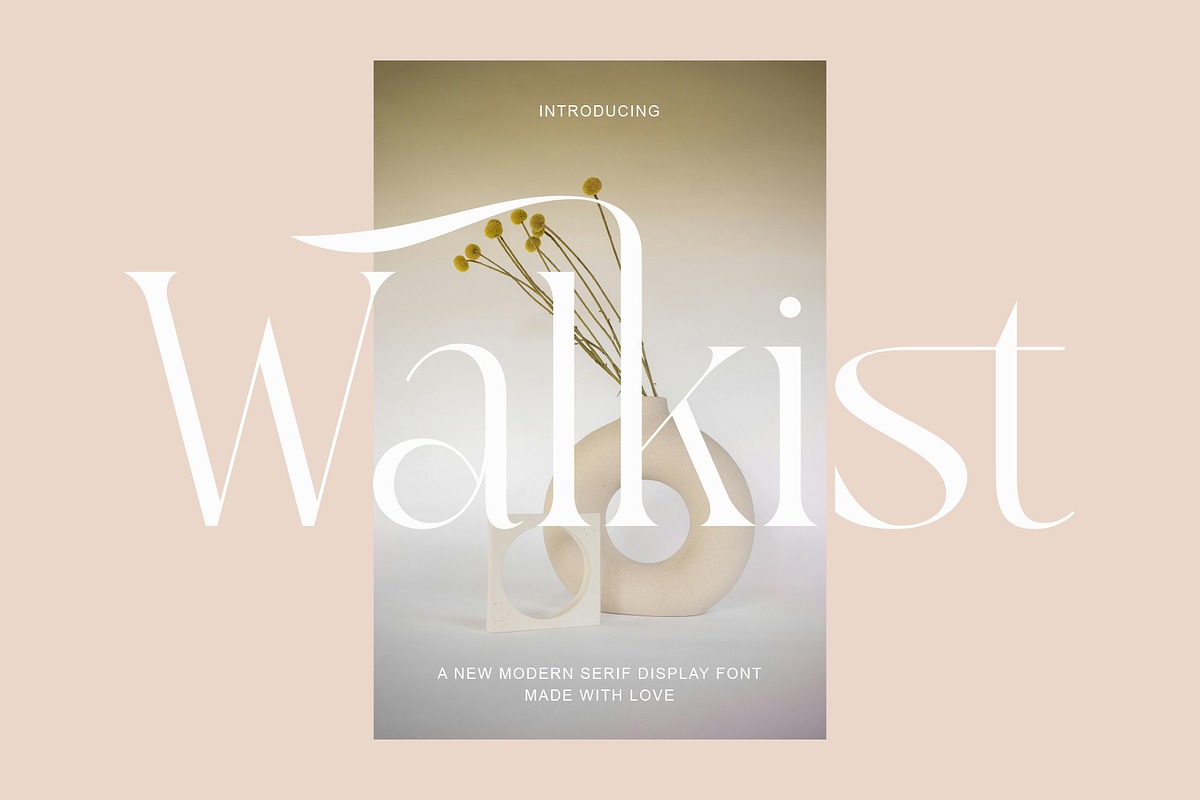
Walkist Font
Walkist Font is a professionally designed typeface that delivers clarity, structure, and consistent performance across various design applications. Walkist An elegant, beautiful and modern serif typeface. With its modern and minimalist appearance, Walkist brings a luxurious, classy and clean style to your projects such as websites, modern logos, branding identities, social media quotes, wedding stationery, magazines and various other needs!
Walkist displays unique and classy capital letters A to Z and is equipped with alternative letters and unique binding letters so that Walkist is a beautiful font that can be adapted to various projects and jobs that you want.